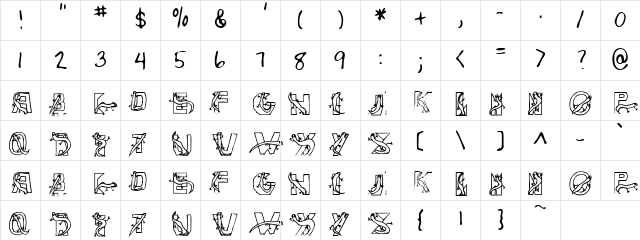
Lizard 2 Regular Free Font
Lizard 2 Regular
Design Context for Lizard 2
Lizard 2 is a composed and adaptable typeface that performs quietly and consistently across a wide range of design contexts.